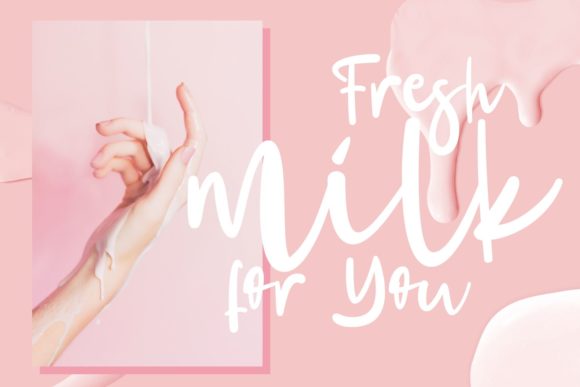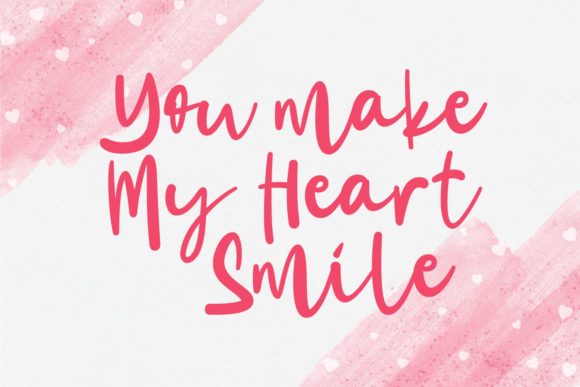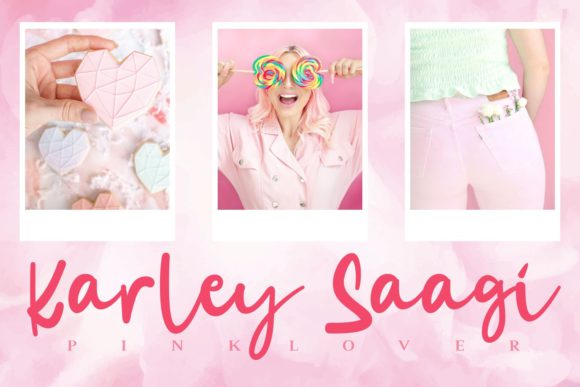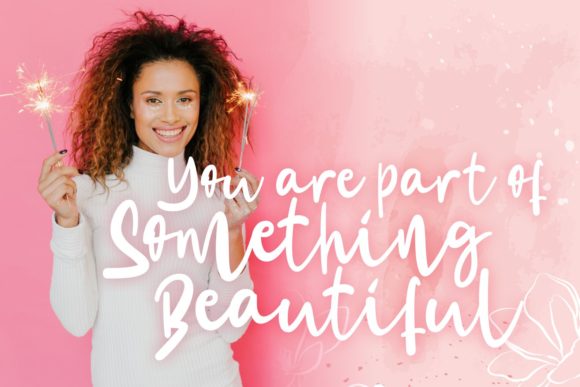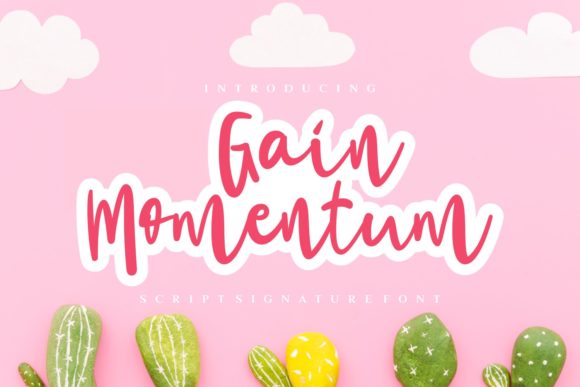
Introducing Gain Momentum Font: The Relaxed and Sloppy Handwritten Font for Crafty Ideas
Are you a designer or crafter looking for a unique and original font to bring your creative projects to life? Look no further than Gain Momentum Font, a relaxed and a bit sloppy handwritten font that’s perfect for a wide range of crafty ideas. In this article, we’ll take a closer look at Gain Momentum Font, its features, and how you can use it to add a personal touch to your designs.
What is Gain Momentum Font?
Gain Momentum Font is a handwritten font that’s designed to give your designs a relaxed and casual feel. It’s a bit sloppy, but in a charming way that makes it perfect for crafty projects. The font has an original look that’s sure to appeal to designers and crafters who want to add a personal touch to their work.
Features of Gain Momentum Font
So, what makes Gain Momentum Font so special? Here are just a few of its key features:
• Relaxed and casual feel: Gain Momentum Font has a laid-back, casual vibe that’s perfect for designers who want to create a friendly and approachable atmosphere in their designs.
• Handwritten look: This font has a genuine handwritten look that’s perfect for adding a personal touch to your designs.
• Original design: Gain Momentum Font has a unique and original design that’s sure to stand out from the crowd.
• Versatile: This font is versatile and can be used for a wide range of crafty ideas, from letterheads and titles to stationery and more.
Uses for Gain Momentum Font
So, what can you use Gain Momentum Font for? The possibilities are endless, but here are a few ideas to get you started:
• Letterheads and titles: Use Gain Momentum Font to create unique and eye-catching letterheads and titles for your designs.
• Stationery: Add a personal touch to your stationery with Gain Momentum Font, perfect for creating custom notebooks, journals, and more.
• Branding and packaging: Use Gain Momentum Font to create a unique and memorable brand identity for your business or product.
• DIY projects: Gain Momentum Font is perfect for DIY projects, such as crafting, scrapbooking, and more.
Tips for Using Gain Momentum Font
Here are a few tips for using Gain Momentum Font in your designs:
• Keep it simple: Don’t be afraid to keep things simple and use Gain Momentum Font as a base font for your design.
• Experiment with colors: Gain Momentum Font looks great in a variety of colors, so don’t be afraid to experiment and find the perfect hue for your design.
• Mix and match: Try mixing and matching Gain Momentum Font with other fonts to create a unique and eye-catching design.
Gain Momentum Font is a unique and original handwritten font that’s perfect for designers and crafters who want to add a personal touch to their designs. With its relaxed and casual feel, original design, and versatility, Gain Momentum Font is sure to become a go-to font in your design arsenal. So why wait? Download Gain Momentum Font today and start creating crafty and eye-catching designs that stand out from the crowd!